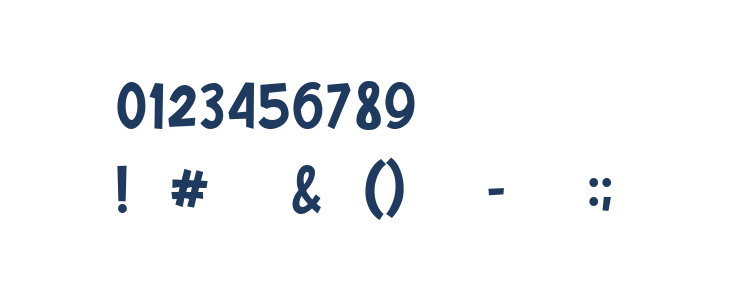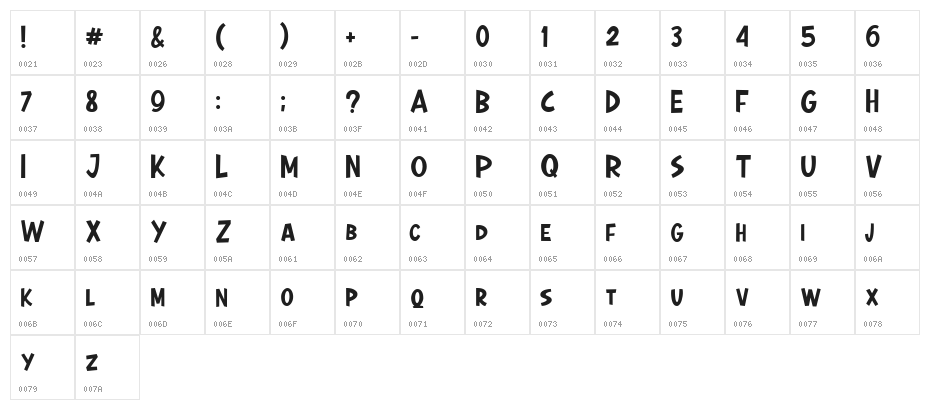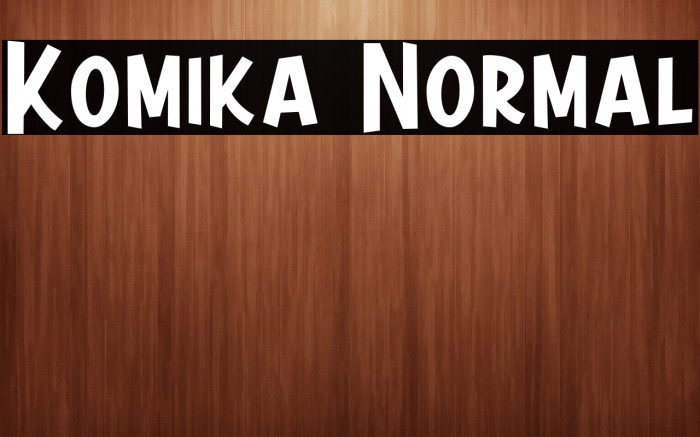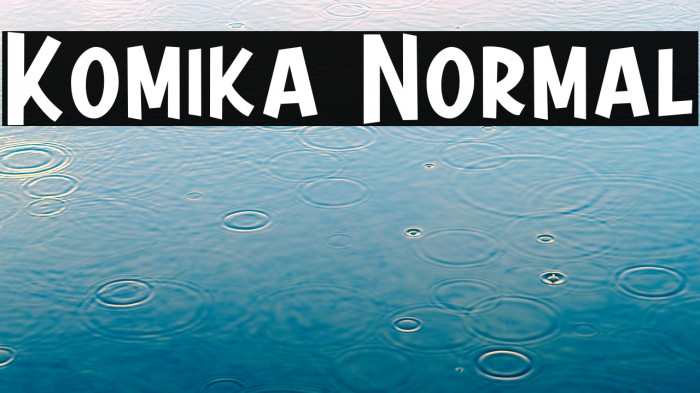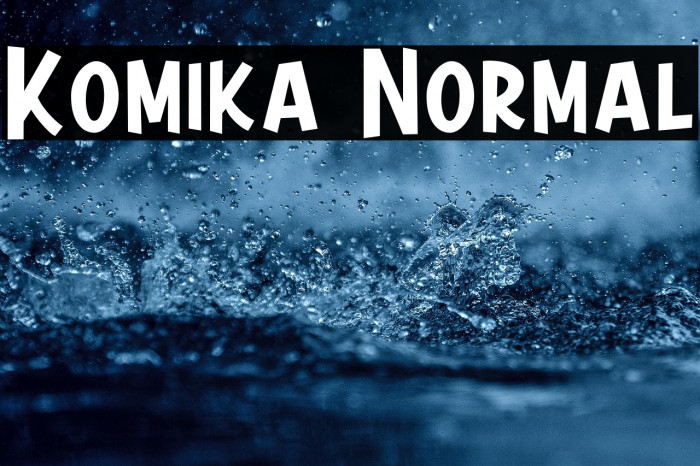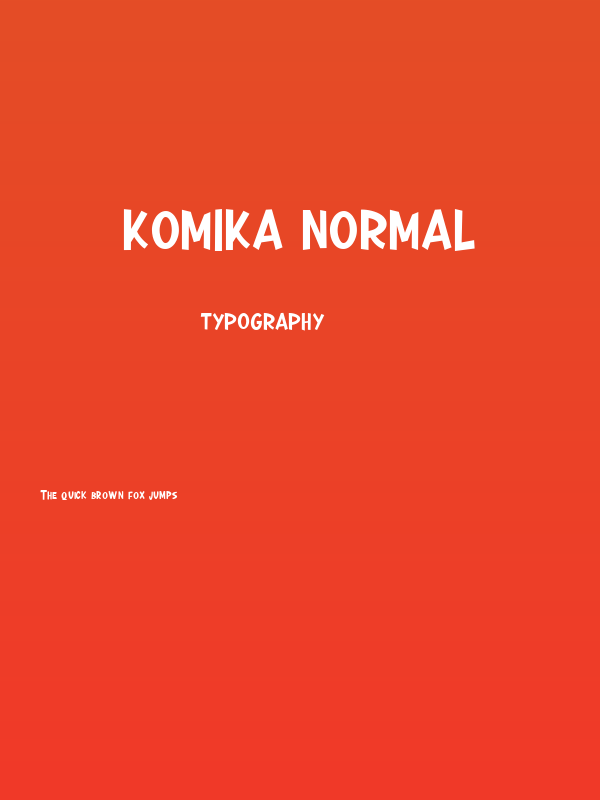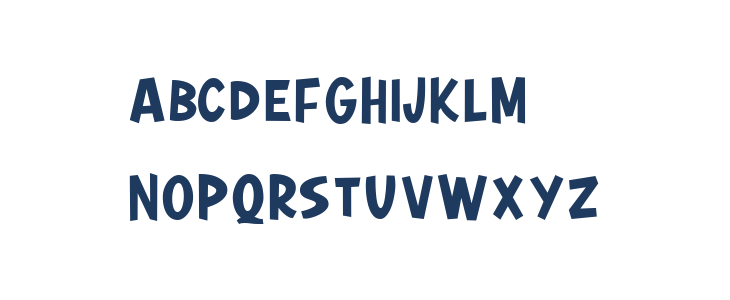
Komika Normal Font
Komika Normal Description
This font features a playful and bold style, characterized by its thick, rounded strokes and slightly irregular shapes that give it a hand-drawn appearance. The uppercase and lowercase letters maintain a consistent weight, providing a cohesive look. The numbers and special characters are equally bold and maintain the whimsical style. This font is perfect for projects that require a fun and informal touch, such as comic books, children's books, or playful branding. Its boldness ensures readability while its unique style adds personality.
| Overall Style | Playful, Comic |
| Proposed Projects | Ideal for comic books, children's books, playful branding, and informal posters. |